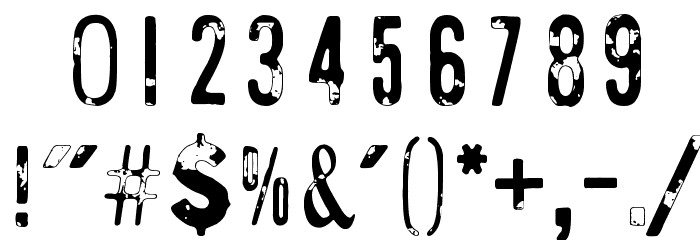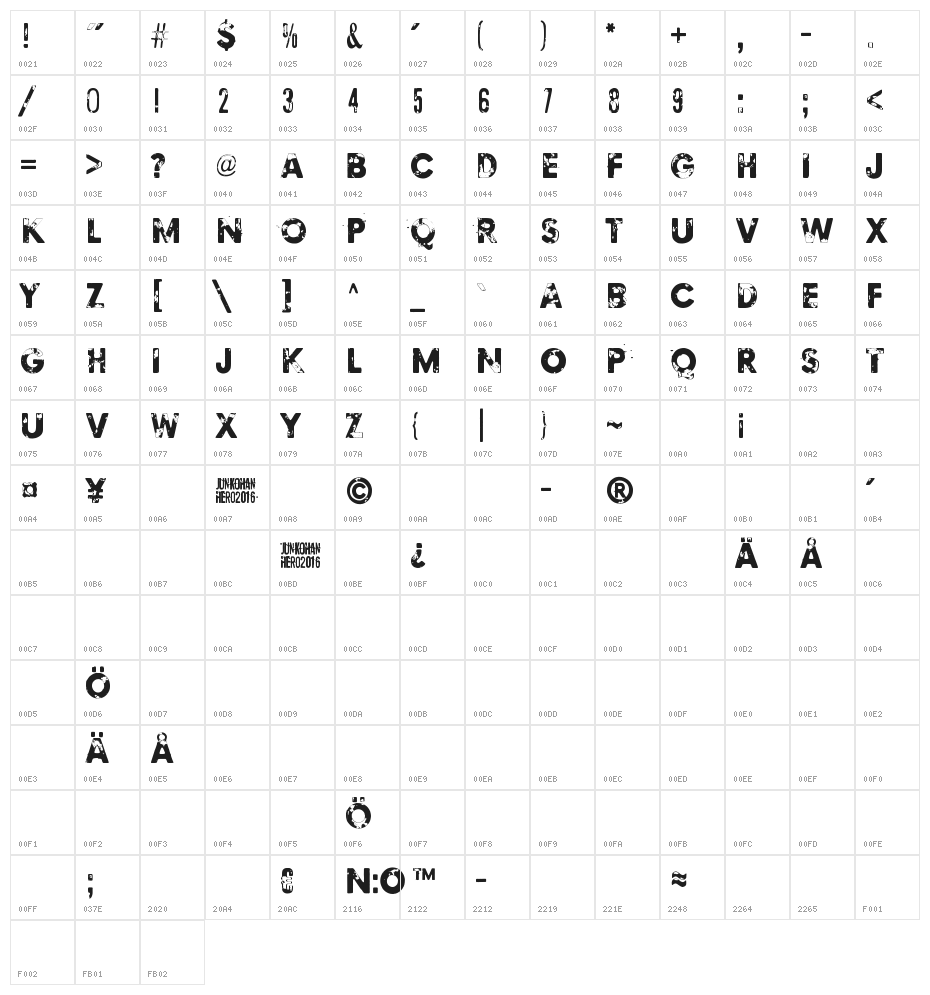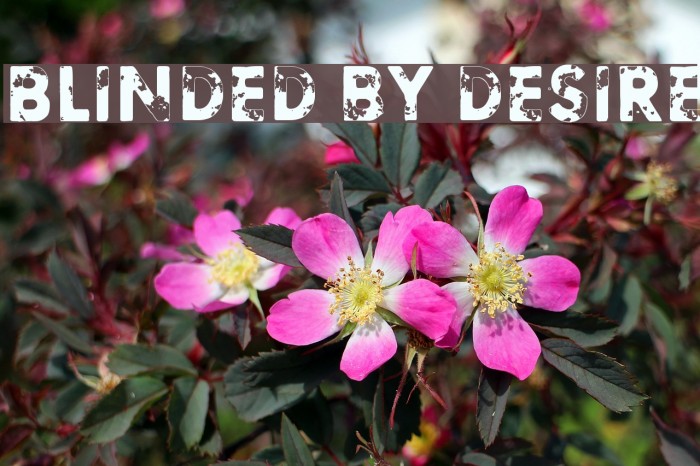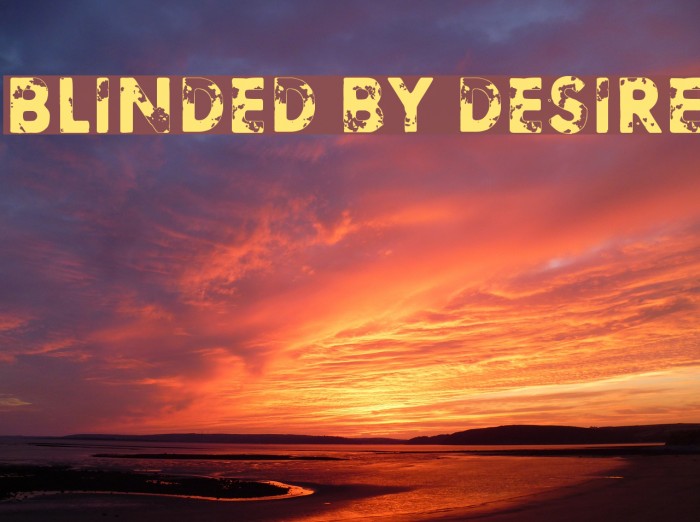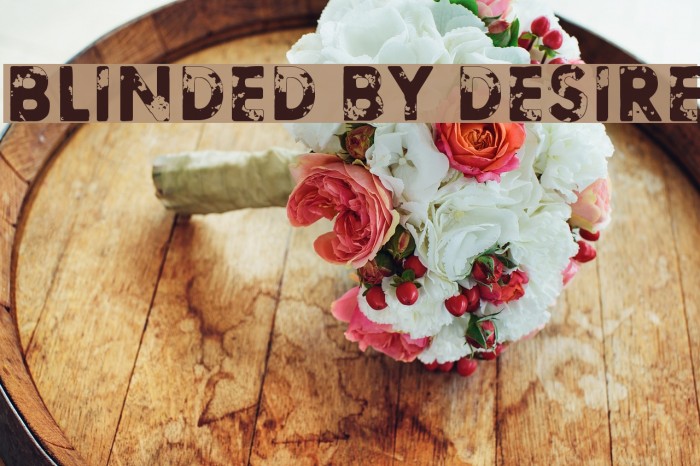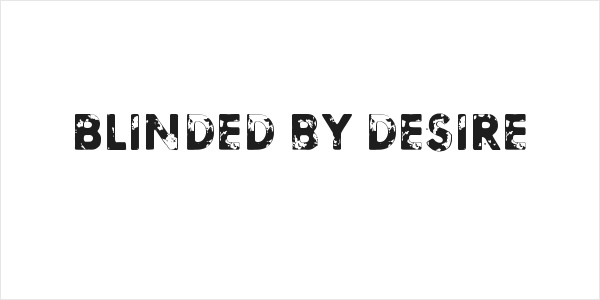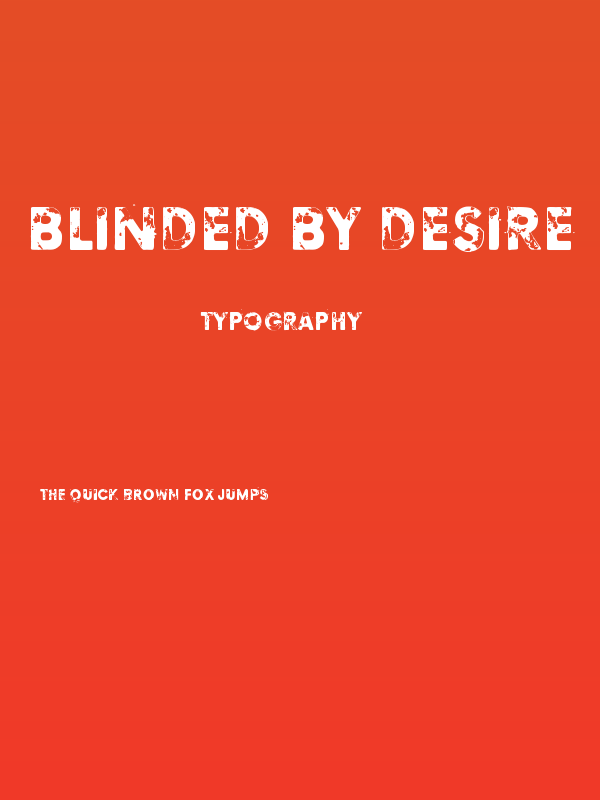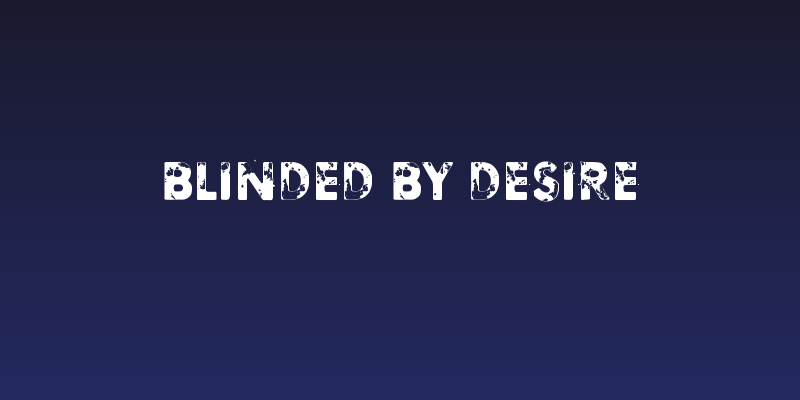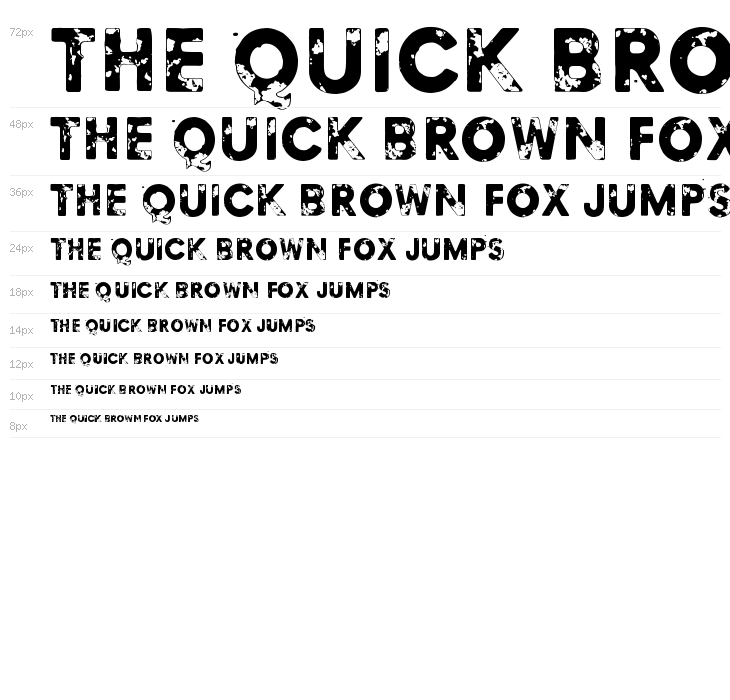
Blinded by desire Font
Blinded by desire Description
This font features a bold and distressed style, characterized by its rough, textured appearance that gives it a grunge or worn-out look. The letters are uppercase and maintain a consistent weight throughout, with irregular patches and scratches that add to its rugged aesthetic. The numbers and special characters follow the same design, ensuring a cohesive look across all glyphs. This font is ideal for projects that require a raw, edgy feel, such as music album covers, posters, or any design that aims to convey a sense of rebellion or nonconformity. Its boldness ensures readability while the distressed elements provide a unique visual interest.
| Overall Style | Grunge, Edgy, Distressed |
| Proposed Projects | Ideal for music album covers, posters, streetwear branding, and rebellious-themed designs. |